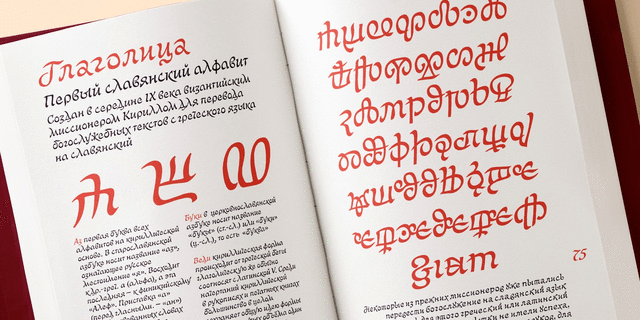
About BogdanAn original script font designed by Victor Kharyk and licensed by ParaType in 2006. Based on Ukrainian Skoropis (fast handwriting) of the 16-17th centuries. The font was named after Ukrainian Getman Bogdan Khmelnitsky, because the main sources and inspirations for the project were taken from collection of handwriting Universals (decrees) of that time -- the middle of the 17th century. The shape of letters imitates flat nib quill handwriting with stress, bringing them informal liveliness. Bogdan font character set contains Cyrillic, Old Slavonic , Glagolitic, Latin and Greek alphabets in two variants: Rejestrowy (Regular) and Siczowy (Alternate). The font is designed for display typography, but can work quite well for short text setting. Bogdan type is well suited for historical and cultural texts associated with Europe in the 15-17th centuries.
Associations for font family BogdanTypeface personality and character:
sharp, dashing, cheeky, warlike, daring, brave, gallant, manly, dynamic, original, freewheeling, plastic, strong, cutting, rebellious, ethnic, natural, traditional, heroic, ancient, Cossack, free, proud, witty, picturesque, alive, temperamental, motivating, active, organic, tribal, historical, hurried, impetuous, quick, curly, curved, wavy, emotional, intricate, drunk, folk, steppe, horse, animal, animalistic, cheerful, playful, windy, running, flying, volatile, expressing, expressive
history, battle, literature, cinema, vodka, alcohol, reconstruction, folklore, music, dance, chronicle, tattoo, souvenir, Cossack, hetman, chieftain, spice, trophy, reward, embroidered, nature, bank note, coin, pepper, legend, graphics, illustration, landscape, tobacco, smoking pipe, restaurant, barbecue, tavern, horseback riding, horse, rider, recreation Typeface associated with age: